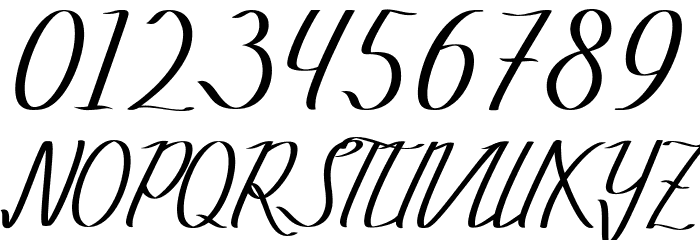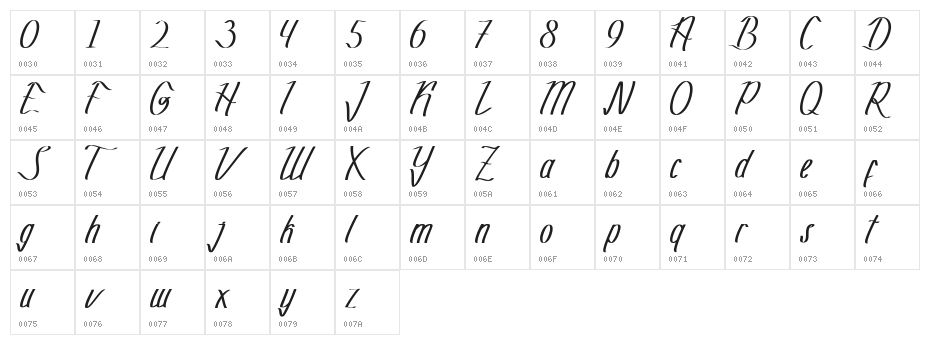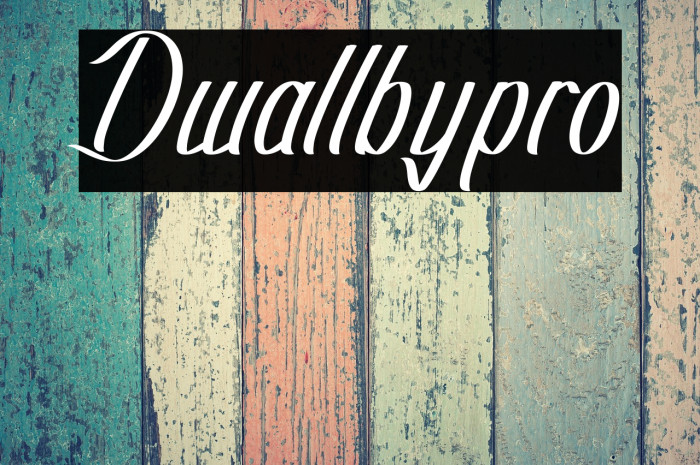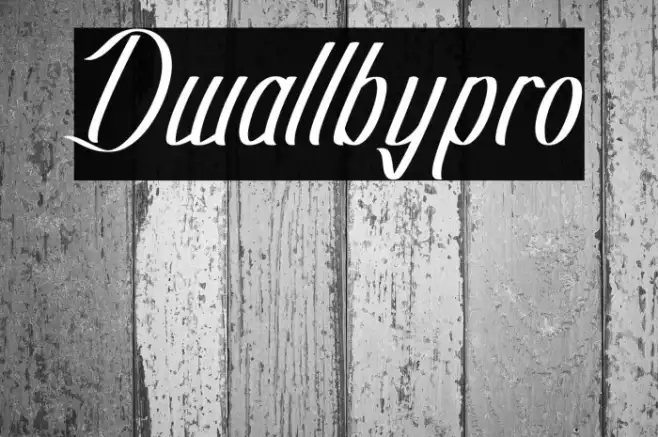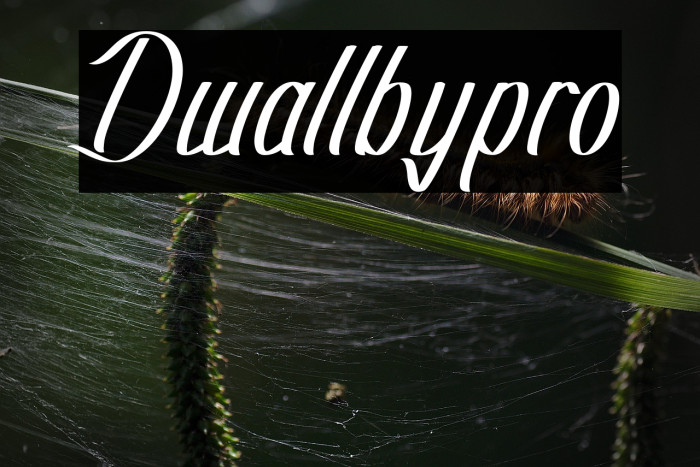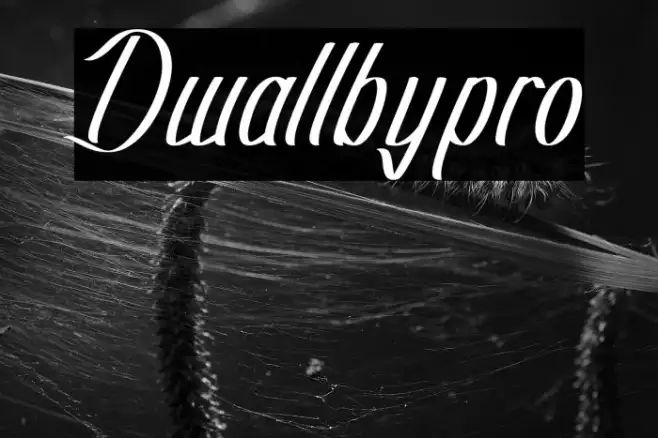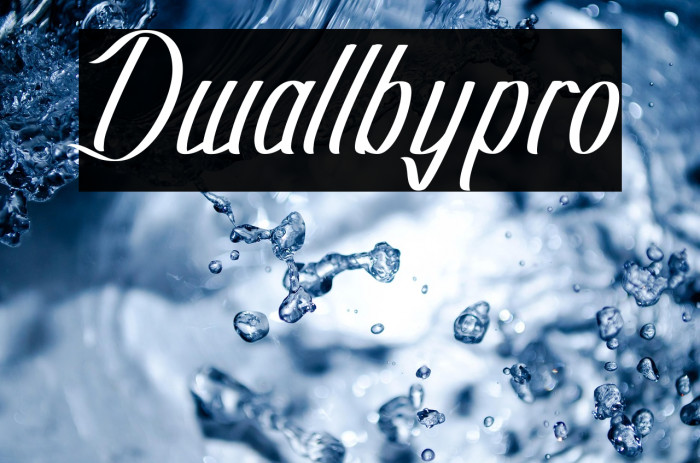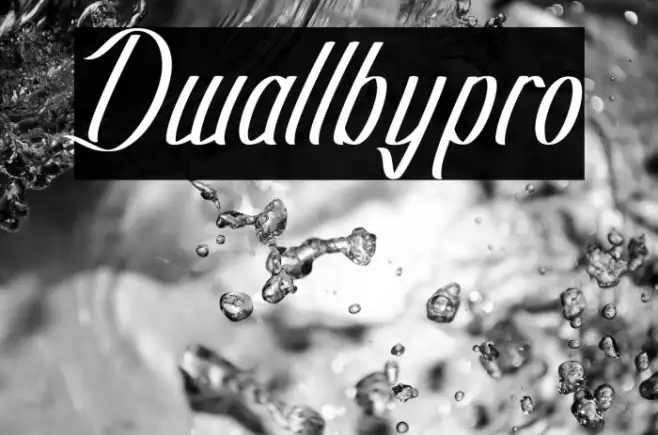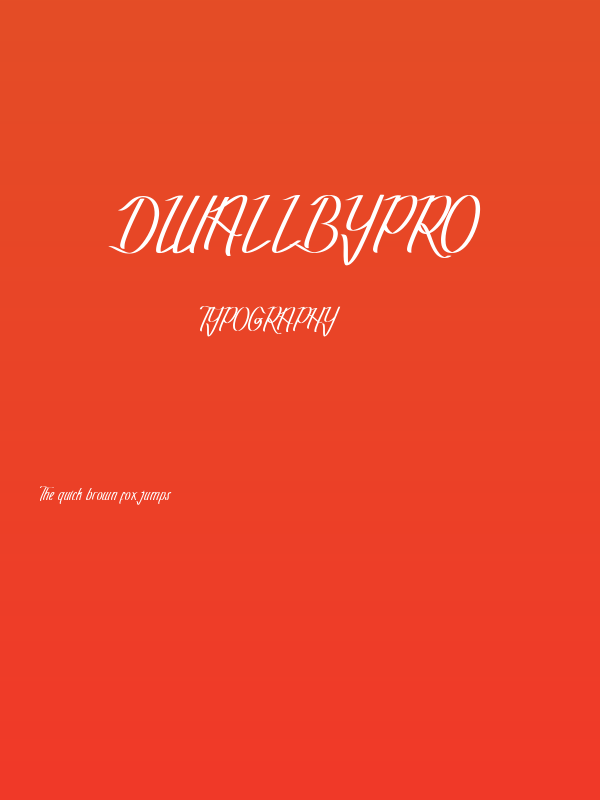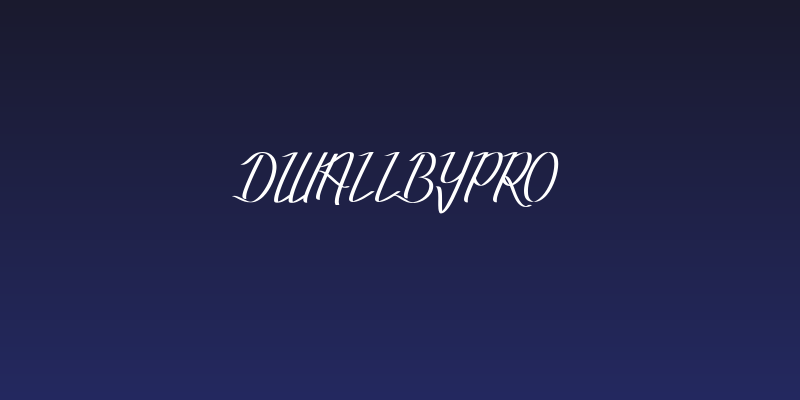
Dwallbypro Font
Dwallbypro Description
This font exudes a dynamic and elegant script style, characterized by its flowing, cursive letterforms. The uppercase letters are tall and slightly slanted, with a consistent stroke width that adds to its graceful appearance. The lowercase letters maintain a similar slant, with some characters featuring distinctive loops and flourishes that enhance the overall aesthetic. The numerals are designed to match the script style, maintaining the same fluidity and elegance. Special characters are seamlessly integrated, ensuring a cohesive look across all glyphs. This font is ideal for projects that require a touch of sophistication and flair.
| Use Case | Logos, Invitations, Headlines |
| Proposed Projects | Ideal for wedding invitations, elegant branding, and sophisticated editorial design. |